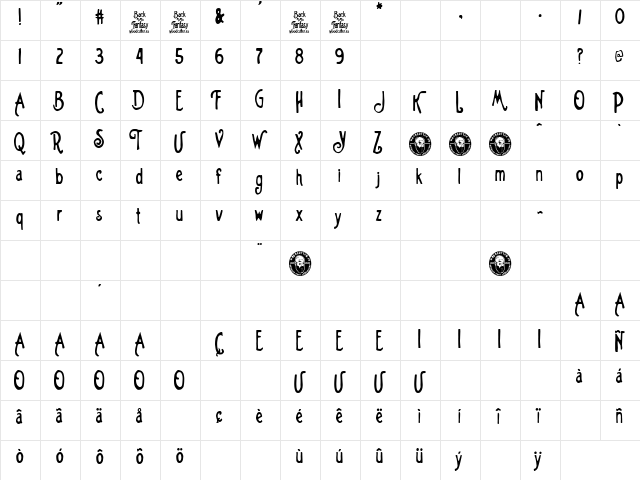
Back To The Fantasy Regular
Design Context for Back To The Fantasy Typeface
Back To The Fantasy is a composed and adaptable typeface that performs quietly and consistently across a wide range of design contexts.